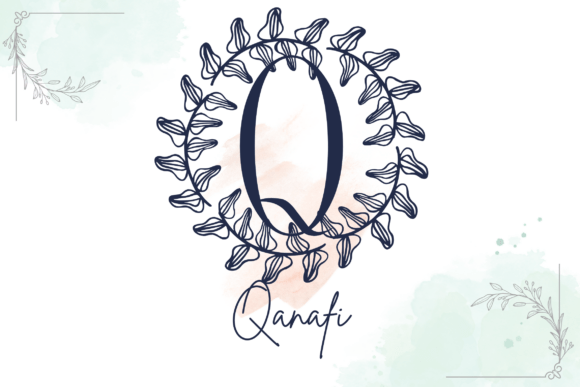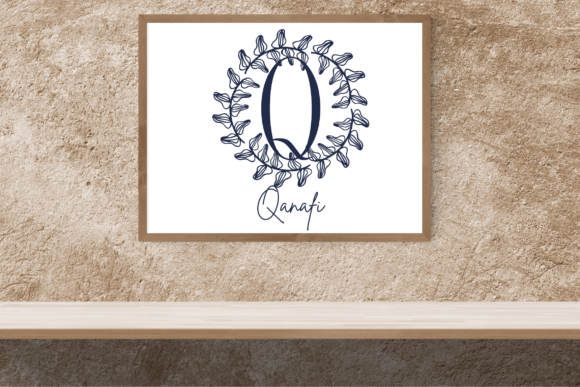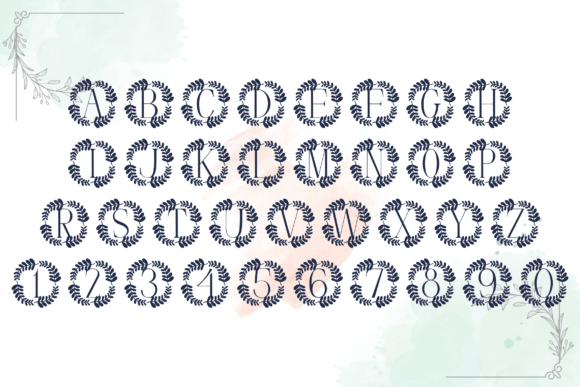
Introduction to Floralith Monogram Font
Floralith Monogram is a refined and artistic monogram font featuring uppercase initials adorned with botanical elements.
With soft curves, floral details, and a timeless serif structure, this font brings natural elegance to branding, wedding stationery, personalized gifts, and decorative packaging Whether youโre designing for romance or refinement, Floralith adds a graceful, leafy touch to your creative work.